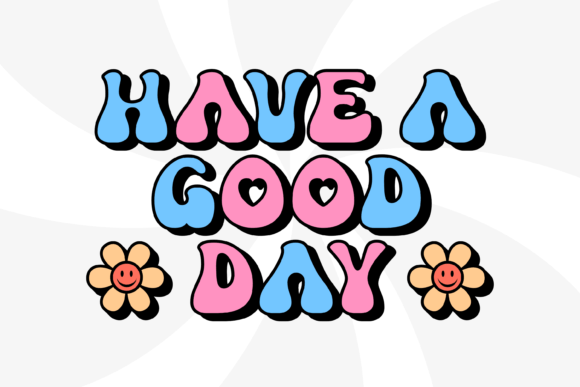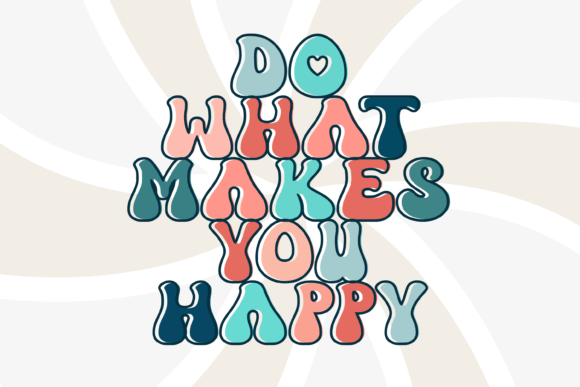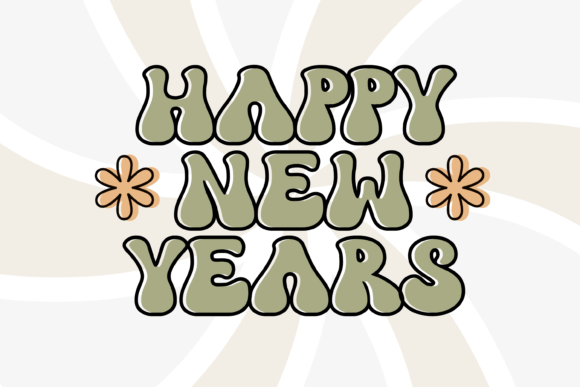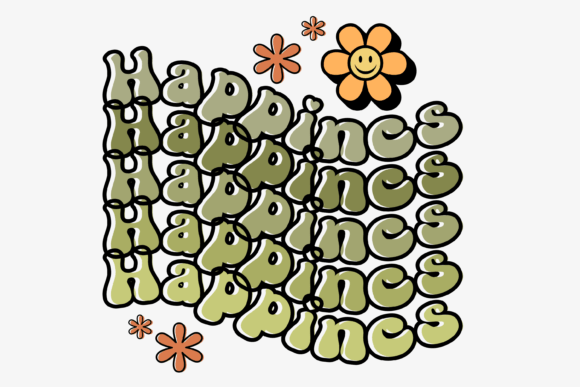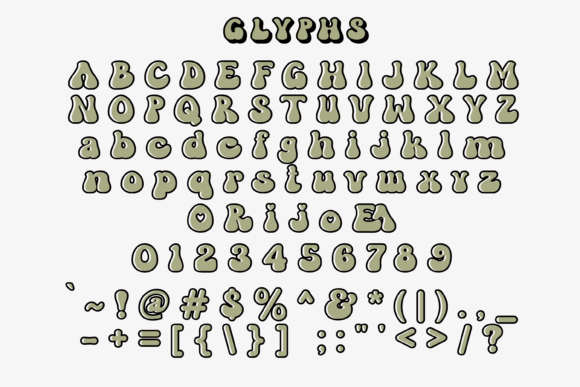
Unlocking the Magic of A Million Dreams Font
Have you ever sat at your desk, staring blankly at a blank page, waiting for the perfect font to strike inspiration? That’s where the magic happens – when a font comes along and makes all the difference. For designers, finding the perfect font can be a game-changer, elevating a design from meh to mesmerizing.
Enter the A Million Dreams Font, a cool, retro, and fun display font that’s sure to capture attention. This versatile font is perfect for headlines, magazines, logos, branding, and so much more. Its unique charm makes it a valuable addition to any designer’s toolkit, adding a touch of personality to even the most mundane designs.
A Million Dreams Font Key Features
- Font Size: The font family consists of multiple weights, including Light, Regular, Medium, Bold, and Extra Bold, each with its own unique characteristics and usage scenarios.
- Unique Characteristics: The font features a dreamy, whimsical quality, with flowing connections between letters and a sense of movement, making it perfect for creative and artistic applications.
- Font Metrics: The font has a x-height of 500, an ascent of 750, and a descent of 250, providing a balanced and harmonious look for text and titles.
A Million Dreams Font Review
I recently had the chance to work with the A Million Dreams Font, and I must say it’s a delightful addition to any design project. ✨ The font’s elegant and whimsical feel instantly evokes a sense of wonder and magic. It’s perfect for creating a dreamy atmosphere in your designs.
- Works well for:
- Children’s book covers
- Advertising campaigns targeting a younger audience
- Wedding invitations with a vintage touch
One of the standout features of this font is its high legibility, even at smaller font sizes. ✨ This makes it ideal for body text in designs where you want to convey a sense of intimacy and approachability.
However, I did encounter some limitations when using the font. ⚠️ The font’s whimsical feel can sometimes make it difficult to read, especially in larger font sizes. Additionally, the font’s compatibility with certain operating systems can be a bit wonky.
Overall, I would give the A Million Dreams Font 4 out of 5 stars. While it has some limitations, its unique charm and high legibility make it a valuable addition to any designer’s toolkit.
The A Million Dreams font is ideal for creative and whimsical projects. Use it for:
- Children’s book illustrations and designs.
- Quirky social media graphics and ads.
For best results, pair the A Million Dreams font with bold, bright colors and playful graphics.